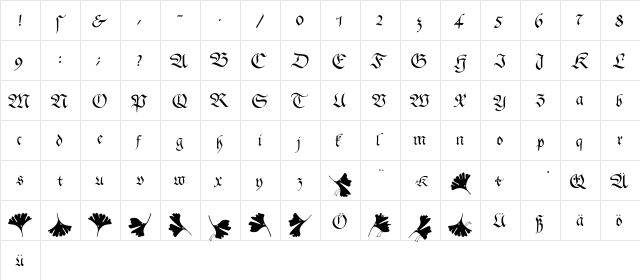
GingkoFraktur Regular Font Preview
GingkoFraktur Regular
Design Context for GingkoFraktur Typeface
GingkoFraktur draws on the rich tradition of blackletter calligraphy, with dense, angular strokes that evoke medieval manuscripts and old-world craftsmanship.
Well-suited to band logos, craft beer branding, tattoo lettering, and heritage-themed identities.
Font Pairing: Pair with a clean neutral sans-serif for body copy to let GingkoFraktur's character lead without overwhelming the composition.
Pro Tip: Use GingkoFraktur sparingly at large sizes. Even a single word set in blackletter can define the visual register of an entire design.